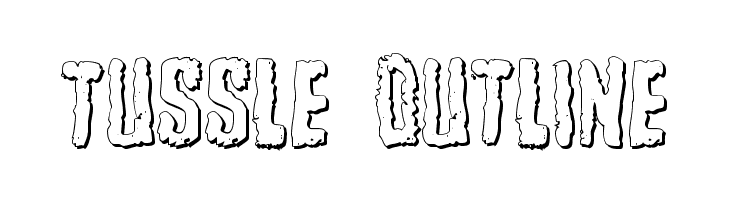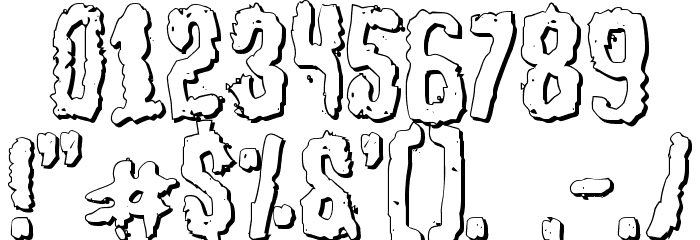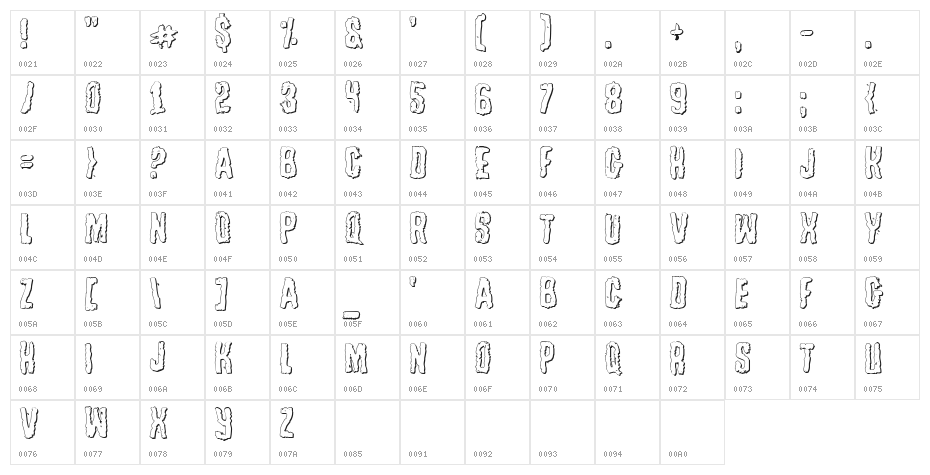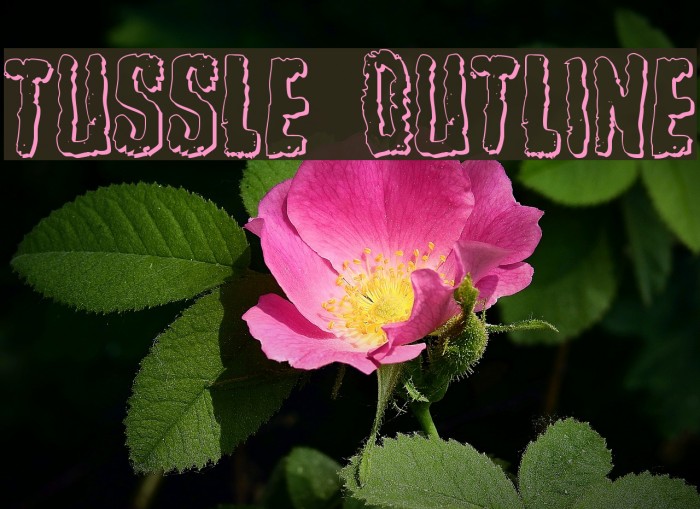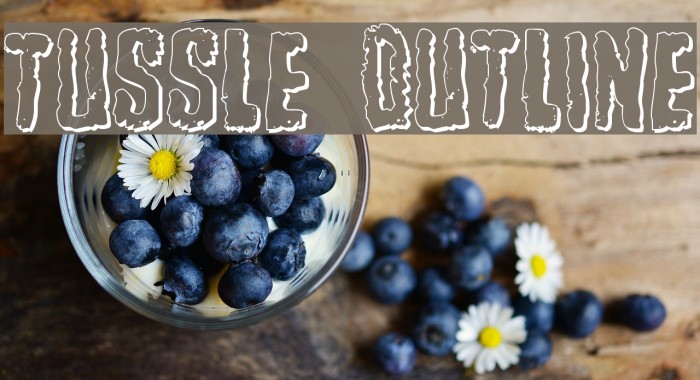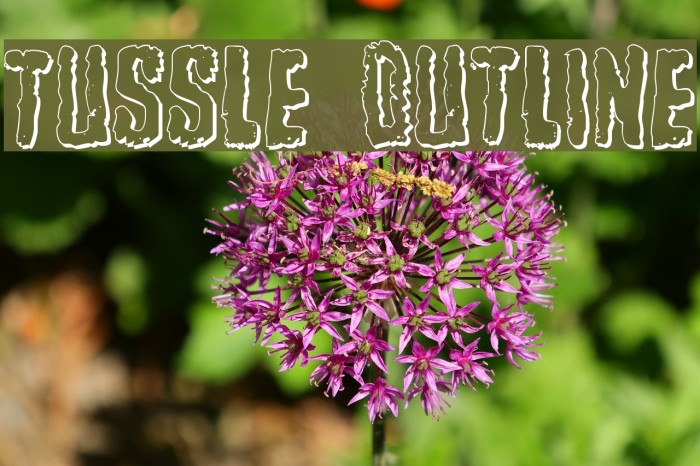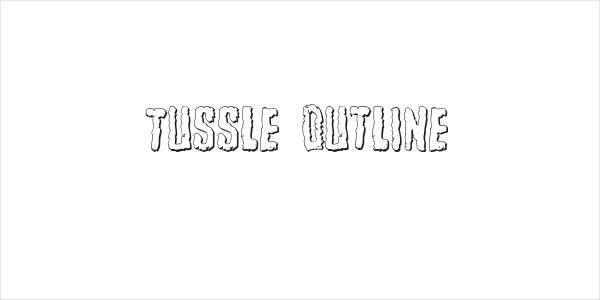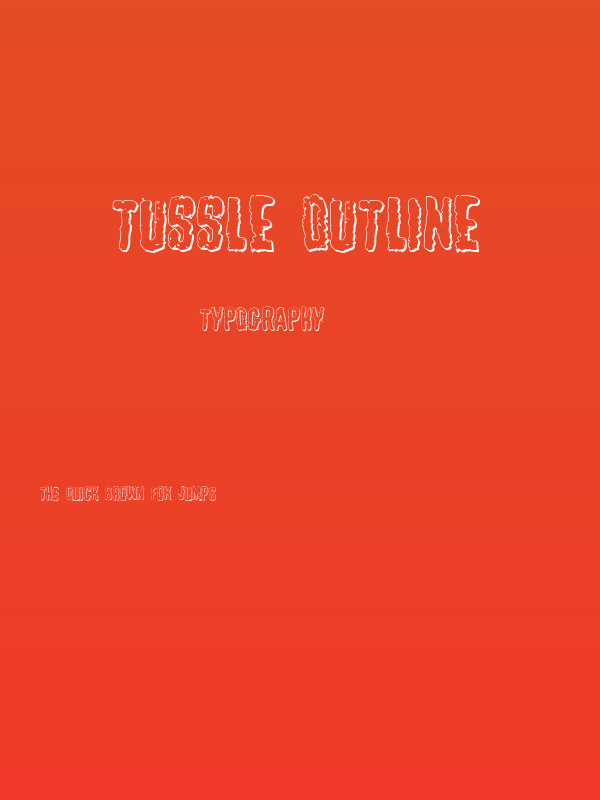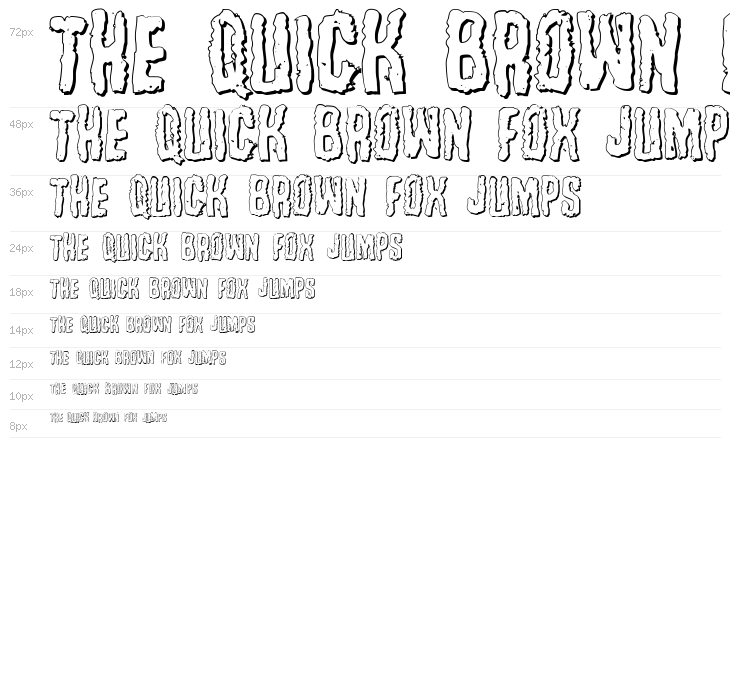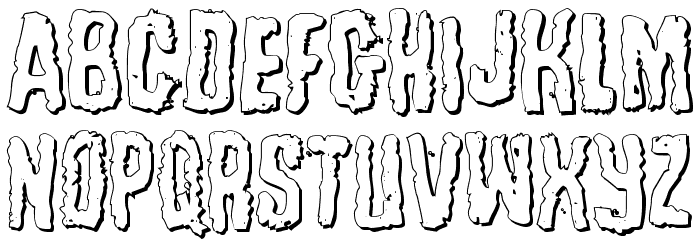
Tussle Outline Font
Tussle Outline Description
This font features a bold, rugged outline style that gives it a distinctive, edgy appearance. The characters are designed with irregular, jagged edges, creating a sense of movement and energy. Each letter and number is outlined, providing a unique, hand-drawn look that stands out. The font maintains a consistent height across all characters, ensuring readability while still offering a playful and artistic flair. The special characters are crafted with the same attention to detail, making them perfect for creative projects that require a touch of individuality.